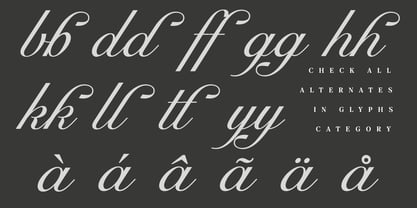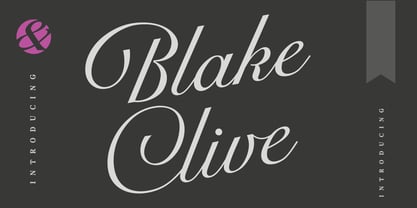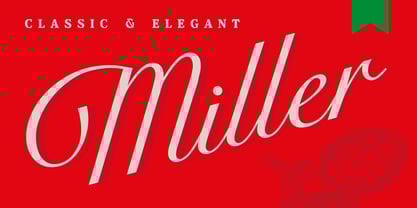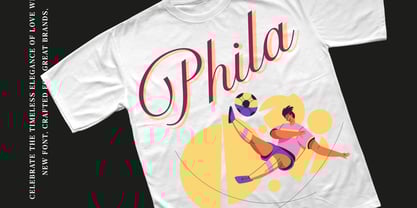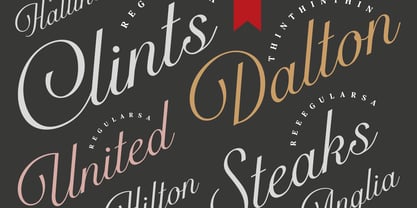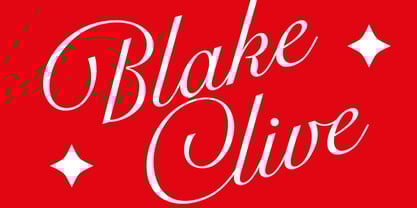
Blake Clive
by Andfonts
The Blake Clive Font Family was designed by Andrii Shevchyk and published by Andfonts. Blake Clive contains 3 styles and family package options.
Do You want a script font that helps You to create modern, elegant, and versatile designs? Look no further! This font combines smooth, flowing strokes with contemporary flair, making it perfect for branding, wedding invitations, logos, and more.
With a full set of stylish uppercase and lowercase letters, numerals, and punctuation, it adapts seamlessly to any creative project. Add a touch of sophistication to your designs and captivate your audience with this timeless script font.